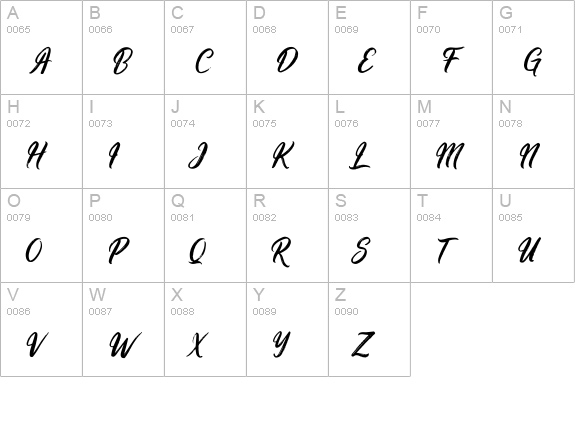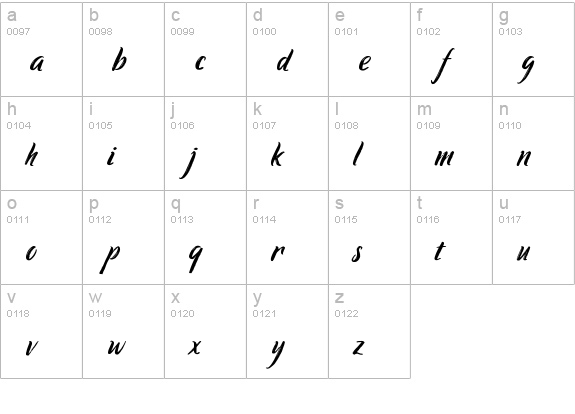
Ringtrack is a demo font in the Script > Brush category, designed by patria_typestudio. It has been downloaded 233 times and is available for Windows, Mac and Linux.
Ringtrack font is a modern and stylish typeface that will bring a touch of elegance to your design projects. With its sleek lines and contemporary appearance, this font is perfect for a wide range of applications, from branding to editorial design. The clean and minimalistic design of Ringtrack font makes it versatile and easy to read, while still maintaining a sense of sophistication.